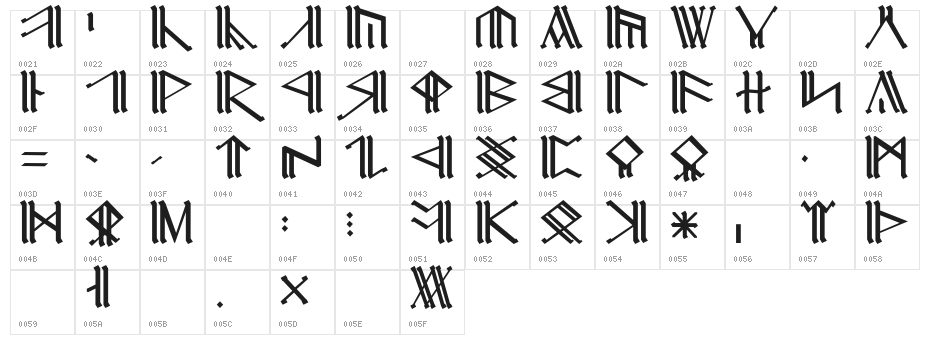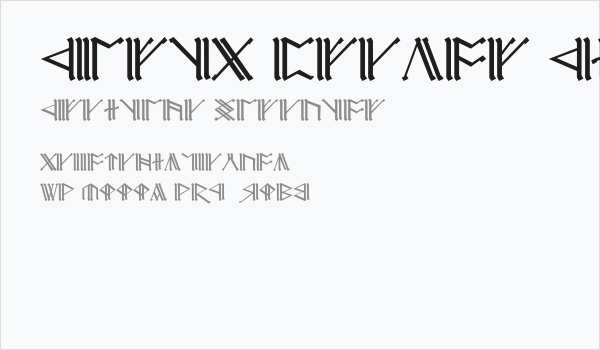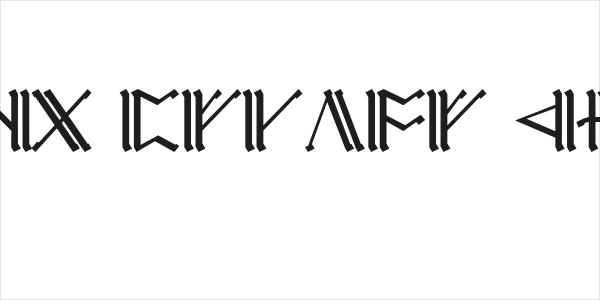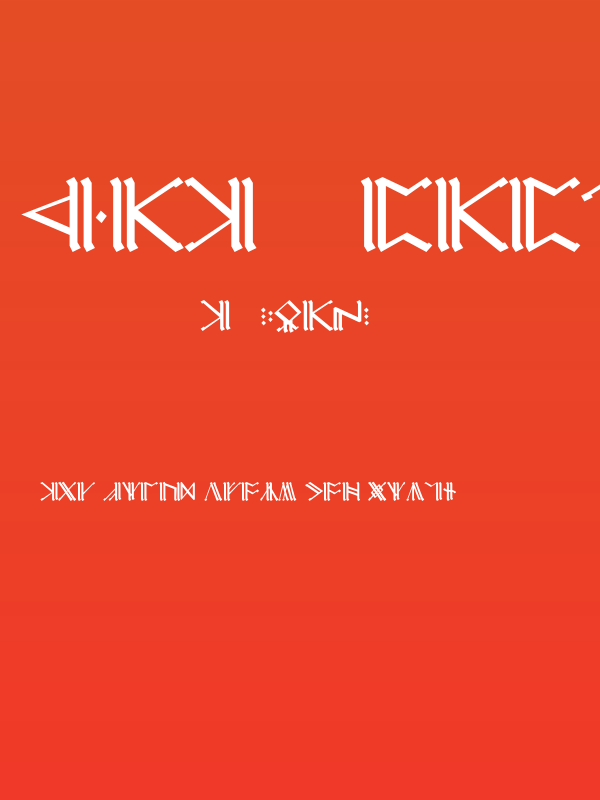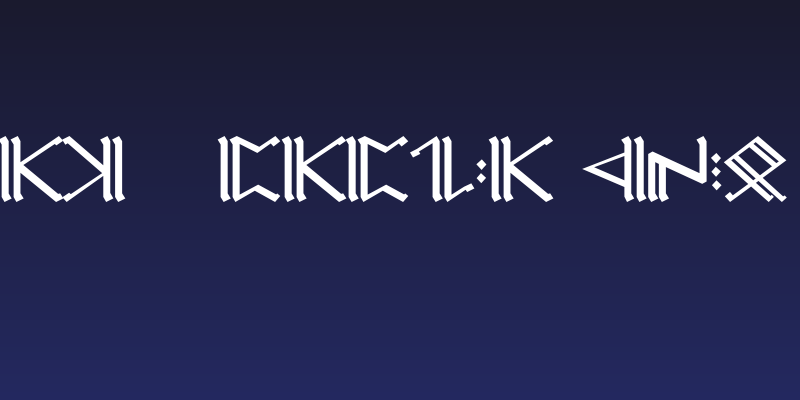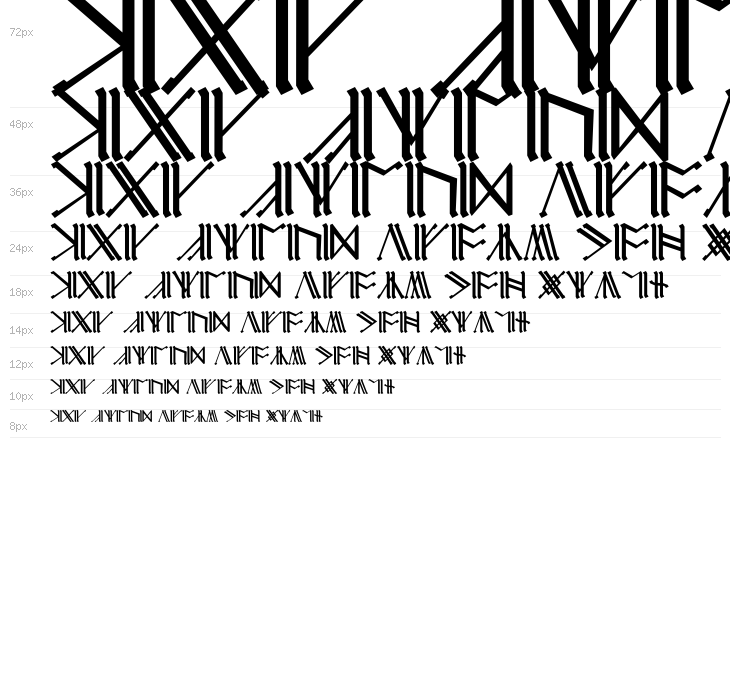
Cirth Erebor Caps 1 Font
Cirth Erebor Caps 1 Description
This font is inspired by ancient runic scripts, featuring angular and geometric shapes that evoke a sense of mystery and antiquity. The characters are composed of straight lines and sharp angles, creating a bold and striking appearance. Each letter is distinct, with a unique combination of lines and angles that make it stand out. The font has a decorative and thematic style, reminiscent of fantasy or historical settings. It is not designed for readability in large bodies of text but rather for decorative purposes where a sense of ancient or mystical ambiance is desired.
| Use Case | Logos, Titles, Decorative elements |
| Proposed Projects | Ideal for fantasy-themed projects, game design, book covers, or any creative work requiring an ancient or mystical aesthetic. |